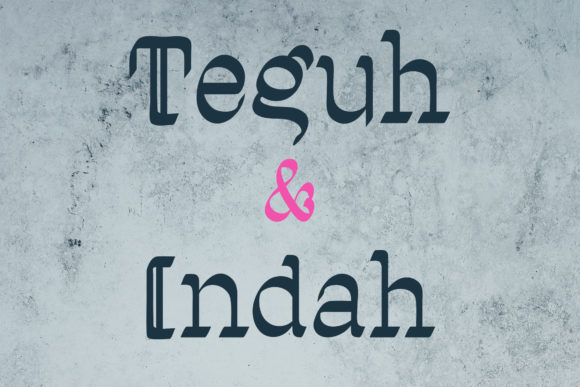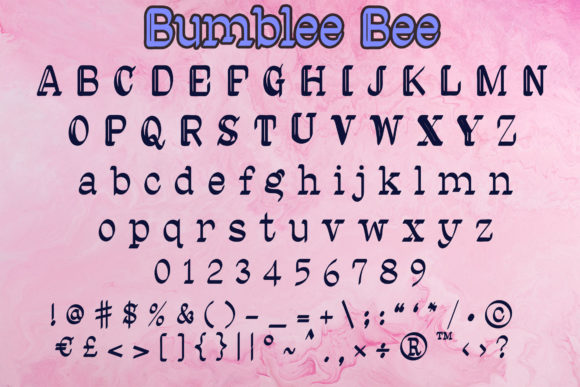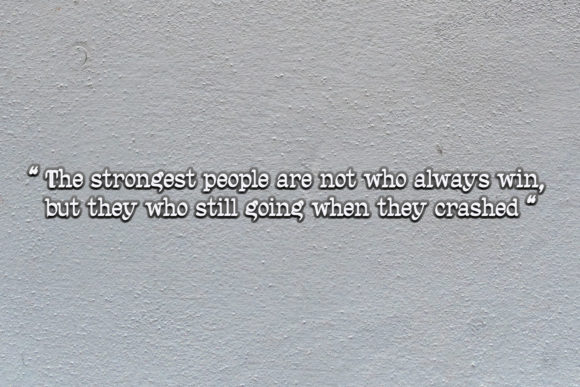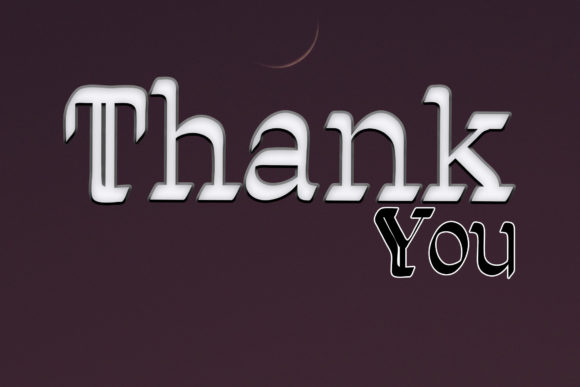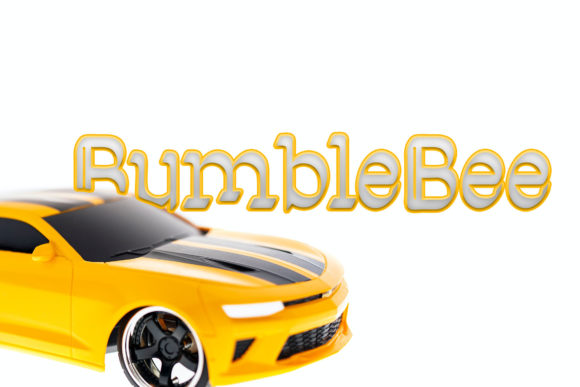
Bumble Bee Font: The Ultimate Choice for Eye-Catching Logos and Branding
Are you a designer or crafter looking for a unique and authentic font to elevate your creative projects? Look no further than the Bumble Bee Font! This distinct slab serif font is specifically designed to help you create eye-catching logos, branding, and quotes that will make your design come alive.
What Makes Bumble Bee Font So Special?
Bumble Bee Font is a one-of-a-kind font that boasts a unique and beautiful touch in every letter. Its slab serif design gives it a distinctive look that sets it apart from other fonts. Whether you’re working on a logo, branding, or quote, this font is sure to add a touch of personality and style to your design.
As a designer or crafter, you know how important it is to have a font that can help you create visually appealing designs. Bumble Bee Font is specifically designed with you in mind. Its unique and authentic style makes it perfect for a wide range of creative projects, from logos and branding to quotes and more.
Key Features of Bumble Bee Font
- Unique and Authentic Style: Bumble Bee Font has a distinct and authentic slab serif design that sets it apart from other fonts.
- Eyecatching Logos and Branding: This font is specifically designed to help you create eye-catching logos and branding that will make your design stand out.
- Beautiful Touch: Every letter in Bumble Bee Font has a unique and beautiful touch that will add a touch of personality to your design.
- Versatile: This font is perfect for a wide range of creative projects, from logos and branding to quotes and more.
- Experiment with Different Sizes: Bumble Bee Font looks great in a variety of sizes, from small and delicate to large and bold.
- Play with Colors: This font looks great in a wide range of colors, from bright and bold to soft and pastel.
- Mix and Match: Try pairing Bumble Bee Font with other fonts to create a unique and eye-catching design.
Why Choose Bumble Bee Font?
There are many fonts to choose from, but Bumble Bee Font stands out from the rest. Here are just a few reasons why:
- Unique Style: Bumble Bee Font has a unique and authentic style that sets it apart from other fonts.
- High-Quality Design: This font is designed with high-quality and attention to detail, ensuring that it looks great in any design.
In conclusion, Bumble Bee Font is the ultimate choice for designers and crafters looking for a unique and authentic font to elevate their creative projects. With its distinct slab serif design and beautiful touch, this font is perfect for creating eye-catching logos, branding, and quotes. So why wait? Download Bumble Bee Font today and take your designs to the next level!